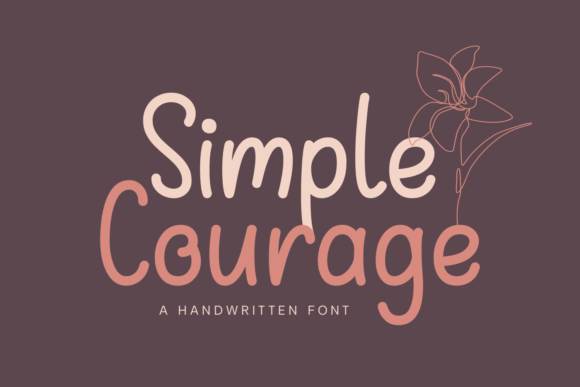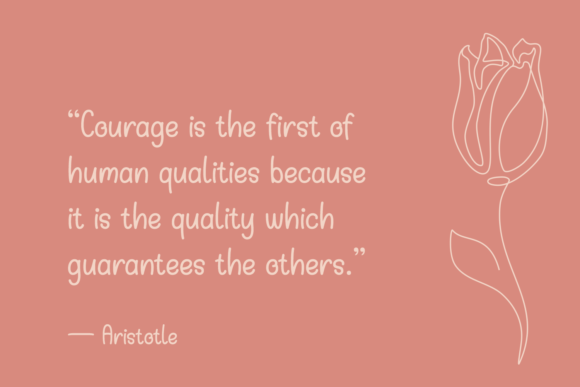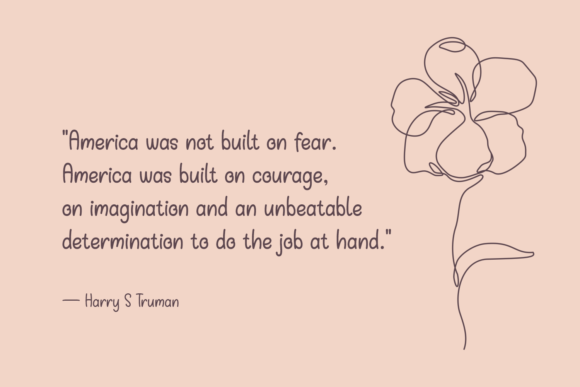
Simple Courage Font
About Simple Courage Font
Simple Courage is a clean and simple handwritten font. No matter the topic, this font will be an incredible asset to your fonts’ library, as it has the potential to elevate any creation.